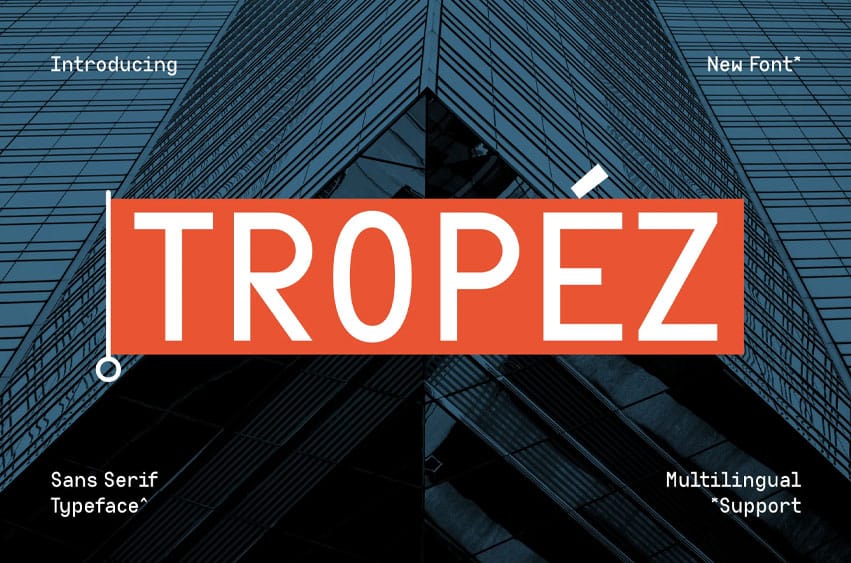
Tropez Font is a modern technical display typeface for sophisticated branding and editorial design, combining clean geometric forms, monospaced-inspired proportions, and precise rectangular details for a structured visual rhythm. Its contemporary character feels confident, architectural, and refined, making it ideal for technology branding, magazines, posters, presentations, and modern identity systems.
TROPEZ is made for designers who want their projects to communicate precision, structure, and modern confidence. Its technical personality works naturally across architecture, technology, editorial layouts, corporate branding, posters, packaging, and digital campaigns. With 67-language multilingual support, it is also suited to international brand systems that need a consistent visual voice across different markets.
- Modern Technical Character Structured letterforms create a precise and contemporary visual identity.
- Strong Geometric Construction Clean shapes and controlled proportions give layouts a polished, organized feel.
- Excellent Headline Impact Distinctive forms make titles and short statements stand out without excessive decoration.
- Multilingual Support – 67 Languages Create global projects with broad language coverage and consistent visual style.
- Versatile Creative Applications Perfect for branding, editorial, architecture, technology, posters, presentations, packaging, and social media.
Give your next project a sharper sense of structure with TROPEZ. Bring modern precision, technical character, and bold editorial impact into your branding, layouts, and visual campaigns.